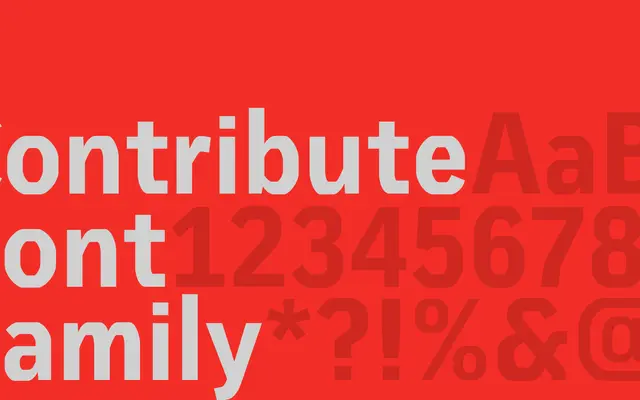
Contribute specimen from Playtype
A Playtype typeface with insufficient published detail to assess its full range or intent from the available page content.
The page for Contribute offers only a brief dramatic quote, leaving weight options, language support and design rationale unspecified. What little is present suggests a typeface positioned for editorial or expressive contexts. Further detail from the foundry would be needed to place it more precisely.
The page content is too sparse to determine precise classification; the quote and dramatic tone suggest a display-oriented typeface likely suited to editorial or branding contexts.